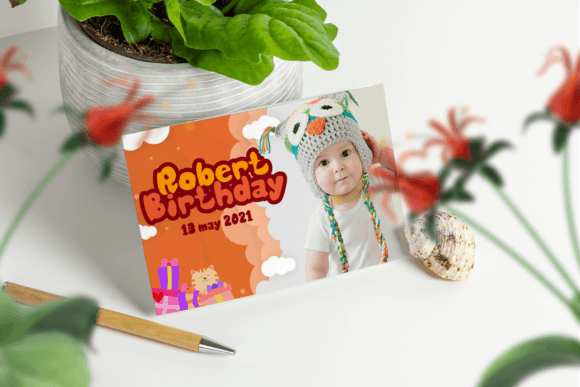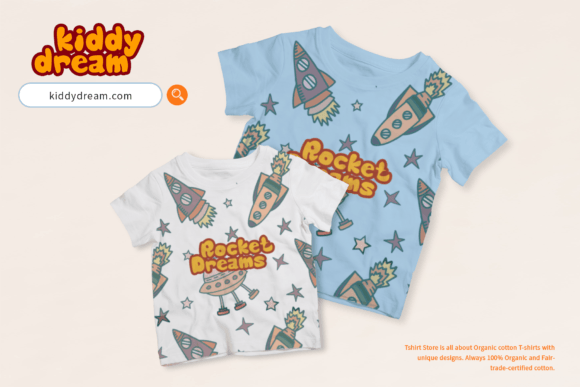
Introduction to Juicy Luicy Font
Juicy Luicy is a modern and playful display font perfect for crafters and designers alike.
Key Features of Juicy Luicy Font
Why Choose Juicy Luicy Font?
Juicy Luicy Font offers exceptional quality and versatility, making it a valuable addition to your design toolkit. Whether you’re creating for personal projects or commercial use, Juicy Luicy Font delivers professional results.